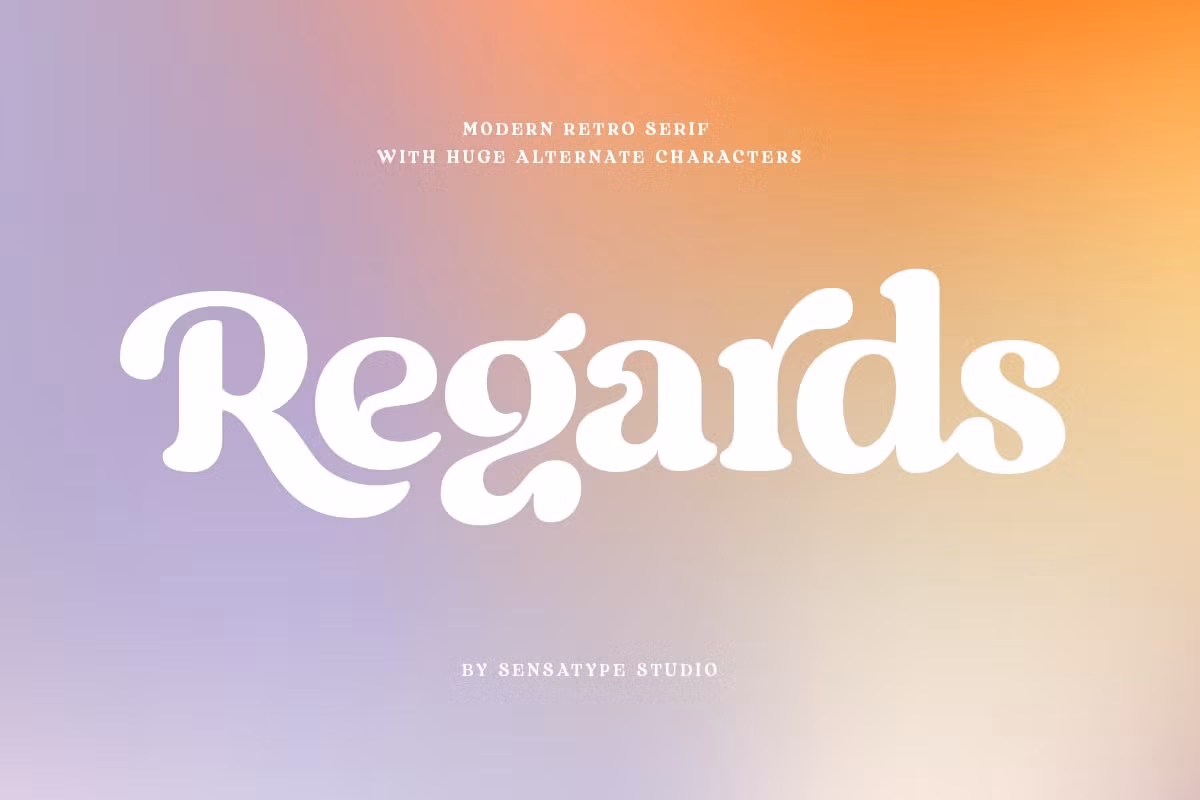
Regards - Modern Retro Serif Free Download
Bring timeless style to your designs with Regards – Modern Retro Serif Font Free Download, a bold typeface blending vintage charm with contemporary elegance. You need to purchase this font for commercial use. However, you can test it in personal or non-commercial projects using Regards – Modern Retro Serif Font Free Download. With its sharp serifs, smooth curves, and nostalgic flair, this font is perfect for logos, headlines, packaging, and branding that needs a retro-modern twist. Designers love its versatility and eye-catching aesthetic. Download Regards – Modern Retro Serif Font Free Download today and make your creative work stand out with classic sophistication.